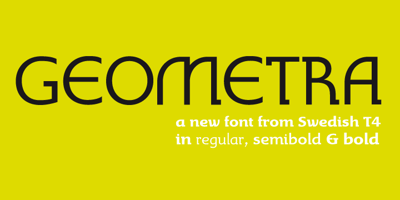
Geometra
Geometra font
Geometra Font Family was designed by Bo Berndal and published by T4 Foundry. Geometra contains 3 styles and family package options. Geometra is a new font family from Swedish type designer Bo Berndal and the T4 font foundry. Somewhere between a slab serif and a sans it has a crisp, geometric feel and is both 20’s retro and modern. Its soft curves and openness makes it very readable in smaller print. The powerful serifs give the font lots of character in larger sizes. Geometra comes in three weights, regular, semibold and bold.